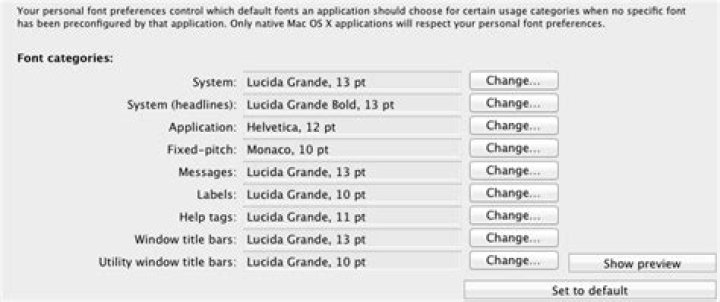
In this regard, how do I change the system font on my Mac?
Also Know, where do you find fonts on a Mac? The default location for all System fonts in System 7.1 and later is the Fonts folder inside the System folder. In Mac OS X, go to System > Library > Fonts. Fonts may also be found in a user's Library > Fonts and in the computer's Library > Fonts.
Similarly, what is the Apple system font?
Helvetica Neue
What is the default Mac font?
The Lucida Grande font is known for its crisp and obvious readability which makes it a great user interface font, and it rightfully served as the Mac OS X default system font for many years. Then along came Yosemite, where the Mac system font was changed to the generally unpopular Helvetica Neue.
What is the iOS 13 font?
Apple has been using Helvetica as the system fonts for iOS since the first iPhone, and they also switched the fonts from Lucida Grande to Helvetica for Mac OS X since 10.10 Yosemite.What is iOS default font?
The default iOS font is San Francisco. You can download San Francisco for free.How do I install a font?
What is a system font?
A system font is a font utilized by the operating system for displaying text used in menus, icons, errors, etc.What is BlinkMacSystemFont?
BlinkMacSystemFont is the equivalent for Chrome on Mac OS X. Segoe UI targets Windows and Windows Phone. Roboto targets Android and newer Chrome OS. It is deliberately listed after Segoe UI so that if you're an Android developer on Windows and have Roboto installed, Segoe UI will be used instead.Can I use Apple San Francisco font?
Apple restricts the usage of the typeface [San Francisco] by others. It is licensed to registered third-party developers only for the design and development of applications for Apple's platforms. The fonts are owned and copyrighted by Apple. This is a screen shot of one of the San Francisco fonts from High Sierra.How do I download new fonts?